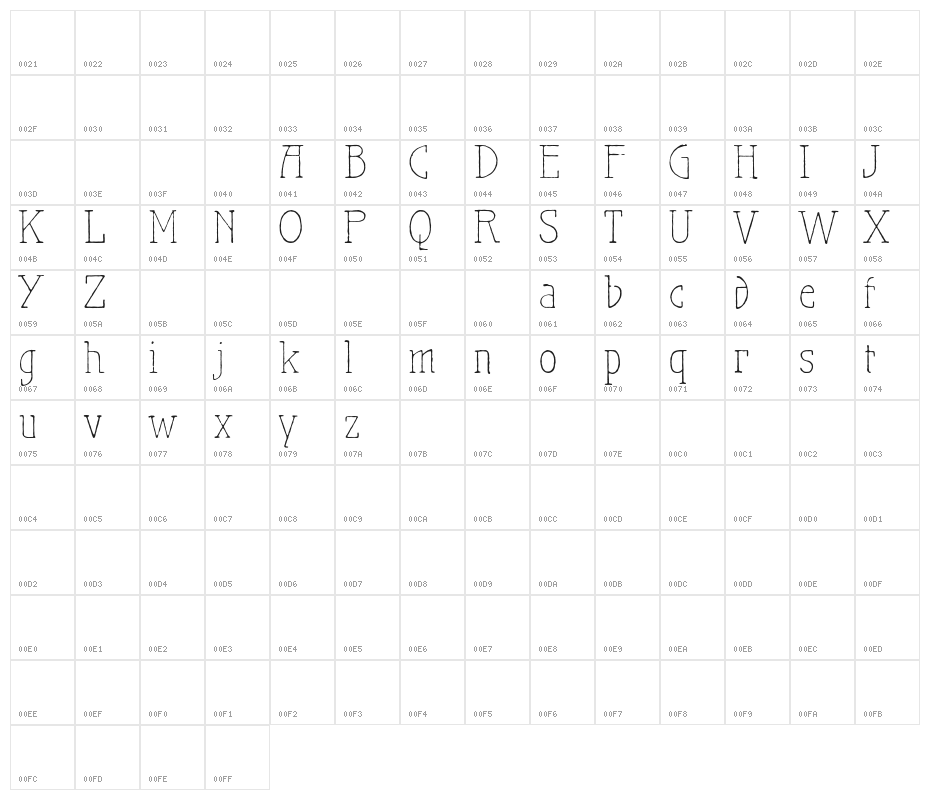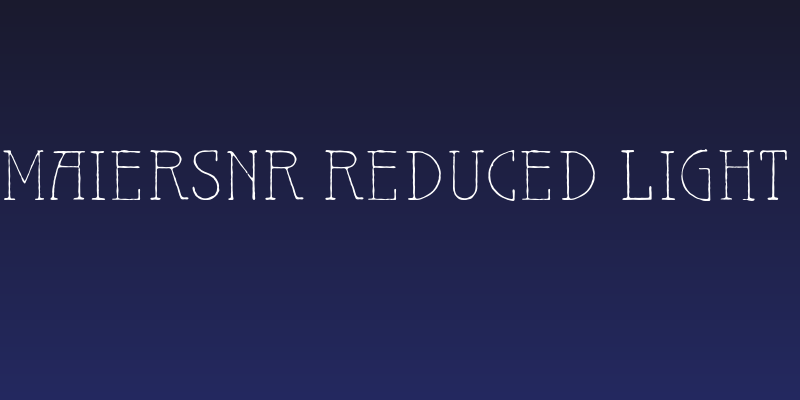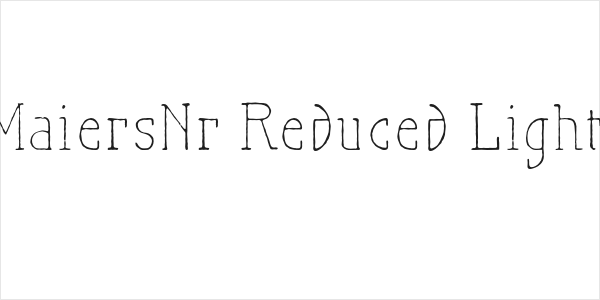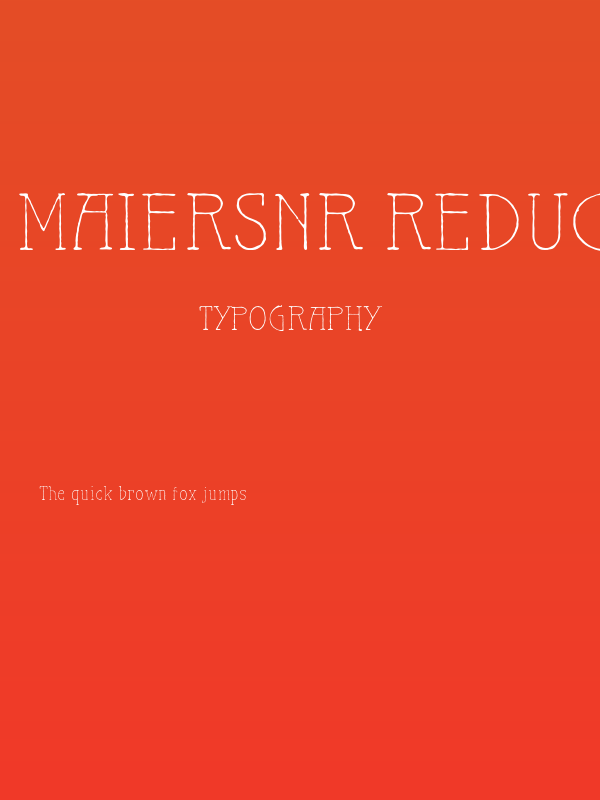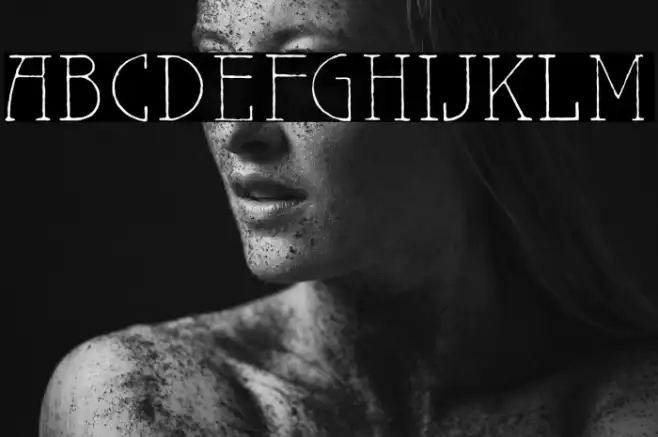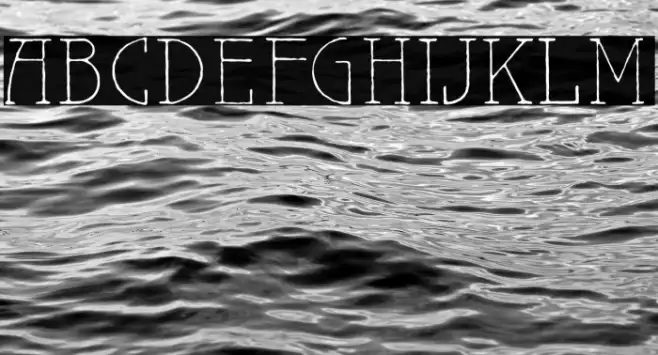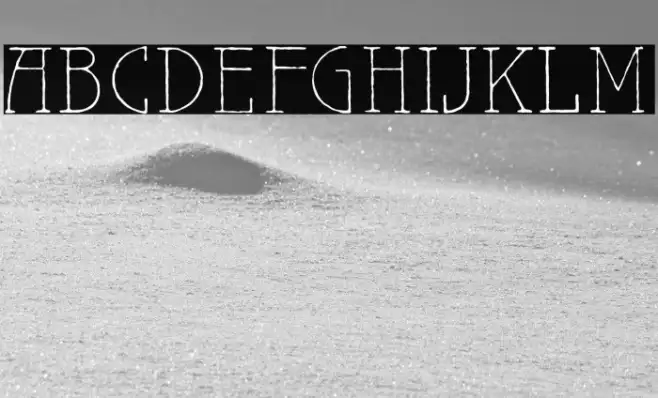
MaiersNr.Reduced-Light Font
MaiersNr.Reduced-Light Description
This font features a unique blend of classic and modern elements, characterized by its thin, elongated strokes and subtle serifs. The letters have a hand-drawn quality, giving them a slightly irregular and organic appearance, which adds to their charm. The uppercase letters are tall and narrow, with distinct curves and angles that create a sophisticated look. The lowercase letters maintain a consistent style, with a playful yet elegant feel. The overall design is delicate and airy, making it suitable for projects that require a touch of elegance and individuality.
| Use Case | Headlines, Artistic projects, Invitations |
| Proposed Projects | Ideal for wedding invitations, greeting cards, artistic posters, and branding that requires a personal touch. |